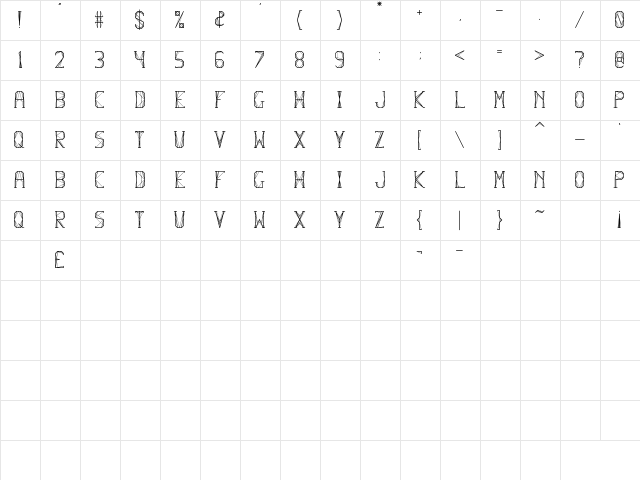
Flexure Regular Free Font
Flexure Regular
Foundry: Here Be Monsters
Designer: Big Minion
Design Context for Flexure
Flexure is a composed and adaptable typeface that performs quietly and consistently across a wide range of design contexts.
Who designed the Flexure Regular font?